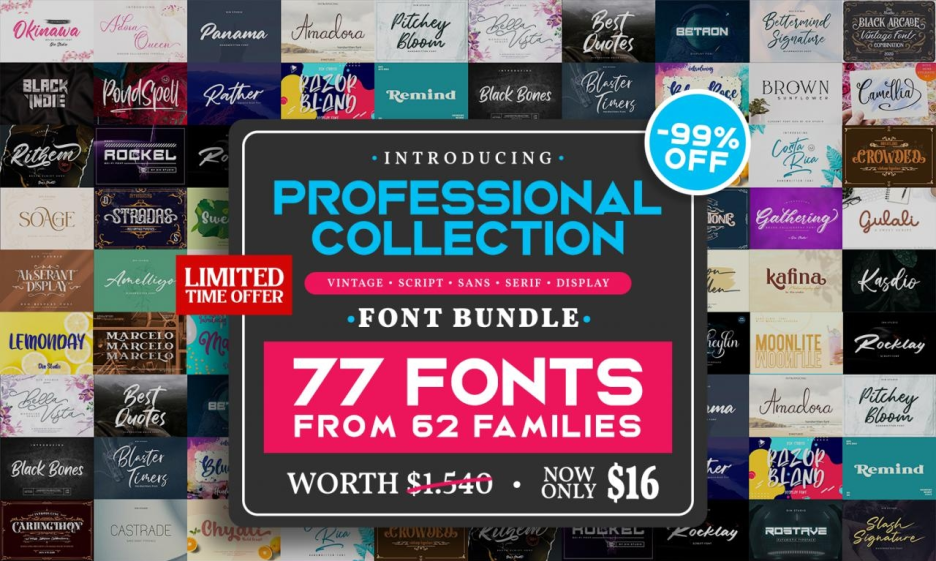
Professional Collection Font Bundle
Elevate your design projects with the Professional Collection Font Bundle. This carefully curated selection features a variety of font styles, including serif, sans-serif, script, and display fonts, each designed to bring a unique character to your work.
• Multiple font styles: Choose from elegant serifs to modern sans-serifs.
• Various weights: Light, regular, bold, and more to suit different design needs.
• Ideal for branding, logos, web design, and print materials.
• Mix and match fonts from the bundle for a cohesive look across your projects.